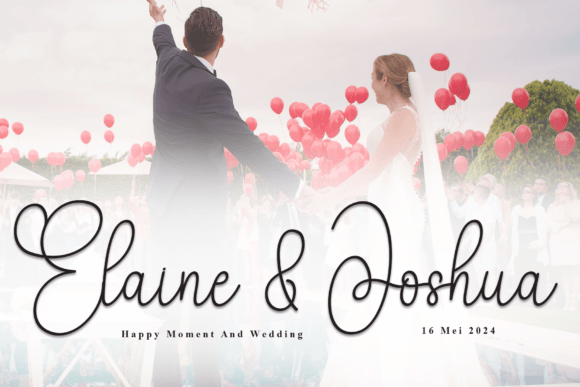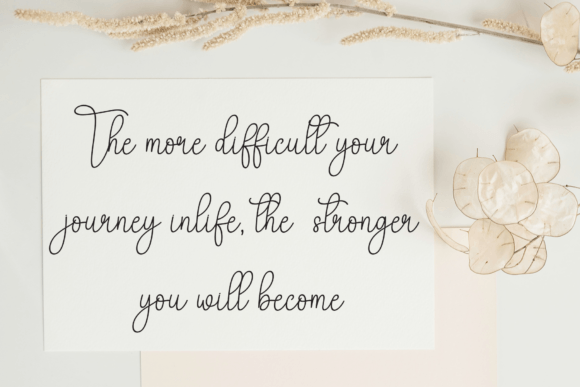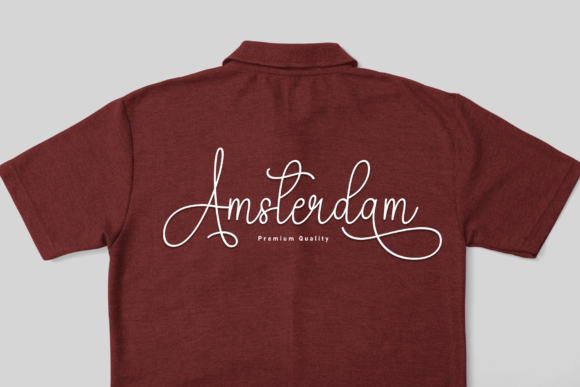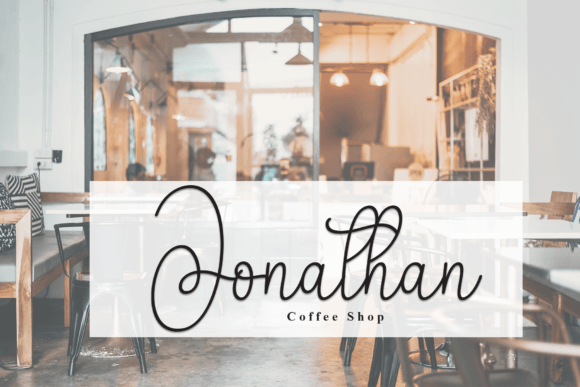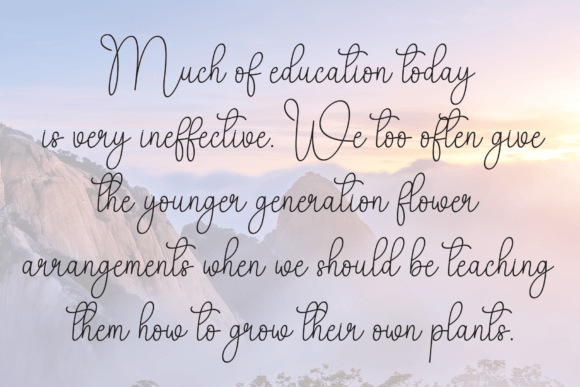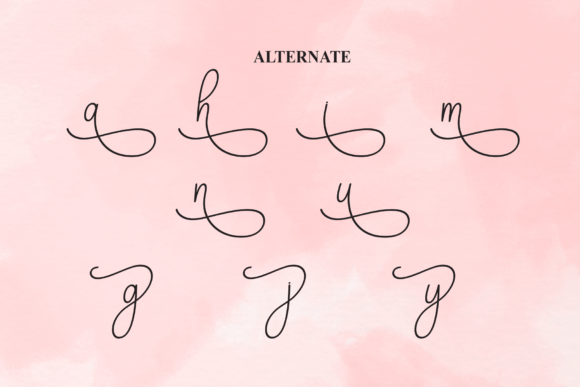
Introducing Blushing Font: The Epitome of Elegance and Sophistication
In the realm of typography, few fonts manage to evoke the same level of elegance and sophistication as Blushing Font. This stylish and incredibly elegant script font has taken the design world by storm, and for good reason. Its versatility and beauty make it an ideal choice for a wide range of design projects, from wedding invitations and thank you cards to quotes, greeting cards, logos, business cards, and more.
The Characteristics of Blushing Font
Blushing Font boasts a unique blend of classic and modern elements, making it a standout in the world of typography. Its script style is reminiscent of handwritten calligraphy, with flowing lines and delicate strokes that exude a sense of refinement and luxury. The font’s elegance is undeniable, making it perfect for designs that require a touch of sophistication.
Why Designers and Crafters Love Blushing Font
So, what makes Blushing Font a favorite among designers and crafters? For starters, its versatility is unmatched. Whether you’re working on a wedding invitation, a business card, or a quote, Blushing Font can be used to add a touch of elegance and whimsy. Its handwritten style also makes it perfect for designs that require a personal touch, such as thank you cards and greeting cards.
Wedding designers and event planners, in particular, will love Blushing Font. Its romantic and elegant style makes it perfect for wedding invitations, save-the-date cards, and other wedding-related designs. The font’s flowing lines and delicate strokes also evoke a sense of nostalgia and whimsy, making it ideal for vintage-inspired wedding designs.
Adding a Touch of Elegance to Business Designs
But Blushing Font isn’t just limited to wedding and event designs. Its elegance and sophistication also make it perfect for business designs, such as logos, business cards, and letterheads. The font’s refined style can help elevate a brand’s image and make it stand out in a crowded market.
Tips for Using Blushing Font
To get the most out of Blushing Font, here are a few tips to keep in mind:
- Use it sparingly: Blushing Font is a statement font, so use it sparingly to avoid overwhelming the design.
- Pair it with contrasting fonts: Pair Blushing Font with contrasting fonts, such as sans-serif fonts, to create visual interest.
- Experiment with colors: Blushing Font looks stunning in a range of colors, from soft pastels to rich jewel tones.
In conclusion, Blushing Font is a stylish and incredibly elegant script font that is sure to elevate any design project. Its versatility, beauty, and elegance make it a must-have for designers and crafters. Whether you’re working on a wedding invitation, a business card, or a quote, Blushing Font is the perfect choice for adding a touch of sophistication and whimsy.